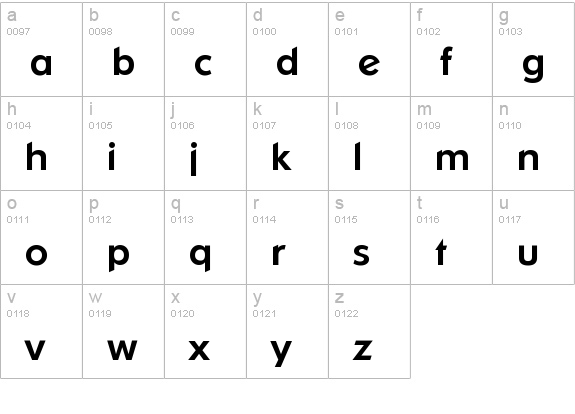
Sharnay Bold Font Details
Sharnay Bold is a strong, high-contrast variant in the Sharnay typeface family \xE2\x80\x94 well suited to headlines, attention-grabbing titles, and strong calls-to-action.
Introducing Sharnay Bold, a striking and versatile font that commands attention with its bold and powerful design. This font is perfect for making a bold statement and adding a touch of modern elegance to any project. Sharnay Bold features clean lines and strong curves, giving it a sleek and contemporary look. Its bold weight ensures that your text will stand out, whether it's used for headlines, titles, or even logos. With its eye-catching style, this font is sure to captivate your audience and leave a lasting impression. But what makes Sharnay Bold even more appealing is that it is freely available to download at FontsMarket.com. Yes, you read that right! This stunning font can be yours at no cost, allowing you to create stunning designs without breaking the bank. Whether you're a professional designer or a creative enthusiast, Sharnay Bold is the perfect addition to your font collection. With its extensive character set, Sharnay Bold supports multiple languages, making it suitable for a wide range of projects. Its versatility allows it to seamlessly adapt to various design styles, from minimalist and modern to bold and edgy. The possibilities are truly endless with this remarkable font. What sets Sharnay Bold apart is not only its captivating design but also its ease of use. It is compatible with both Mac and Windows operating systems, ensuring a seamless experience for all users. Its user-friendly nature makes it a breeze to incorporate into your design workflow. So why wait? Elevate your designs to new heights with Sharnay Bold. Download it for free at FontsMarket.com and let your creativity shine. Whether you're designing print materials, website graphics, or social media posts, this font will make a bold statement and leave a lasting impression on your audience. Don't miss out on this incredible opportunity to enhance your designs with Sharnay Bold - the perfect combination of beauty, power, and affordability.